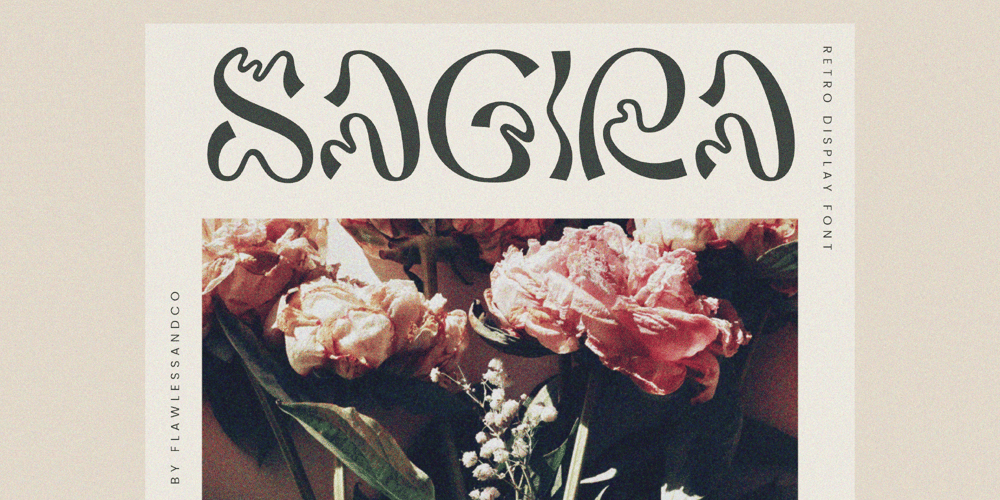
Sagira Font Family was designed by Achmad Yani and published by Flawlessandco. Sagira contains 1 styles and family package options. Introducing “Sagira” – A Retro Display Font. Travel back in time with “Sagira,” a nostalgic retro display font that pays homage to the past, complete with charming wavy line details that evoke a sense of vintage flair.There’s some connected letters and some alternates that suitable for any graphic designs such as branding materials, t-shirt, print, business cards, logo, poster, t-shirt, photography, quotes .etcThis font support for some multilingual. Also contains uppercase A-Z and lowercase a-z, alternate character, numbers 0-9, and some punctuation.If you need help, just write me! Thanks so much for checking out my shop!